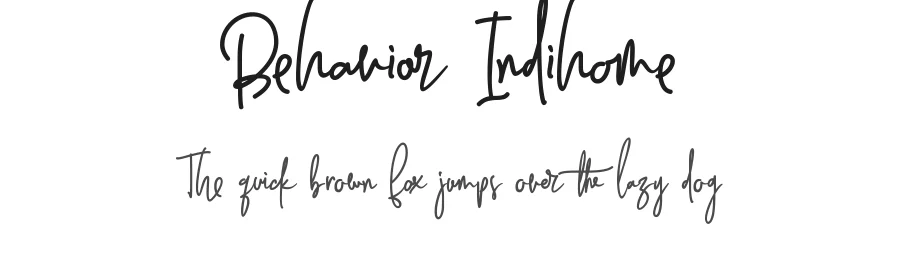
About Signathy Font
Signathy is an elegant script font with charming letters. It will add a romantic touch to any crafting project! has a natural writing style and will add a classy touch to your designs. Includes in uppercase, lowercase letters, standard numbers and punctuation also multilingual support
| Designer | Wasito Utomo (Ketapel Creative) |
Signathy ships with 1 OpenType feature you can switch on in apps that support them (Illustrator, InDesign, Affinity, Figma, CSS font-feature-settings).
Signathy Font is a script font that shines as a display or heading face. Pair it with a clean sans-serif or serif font for body text β the contrast creates a clear hierarchy while the two styles stay balanced and easy to read.